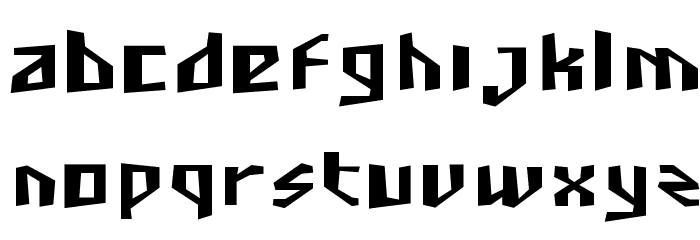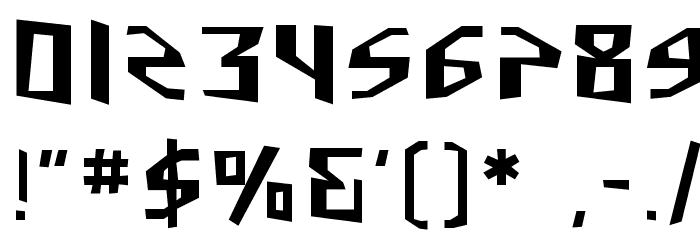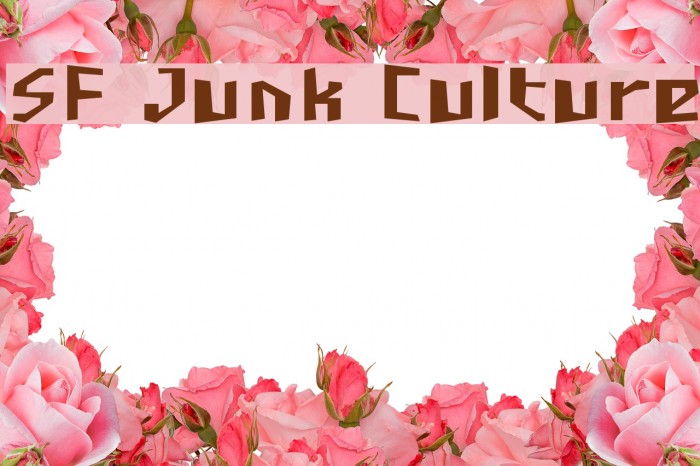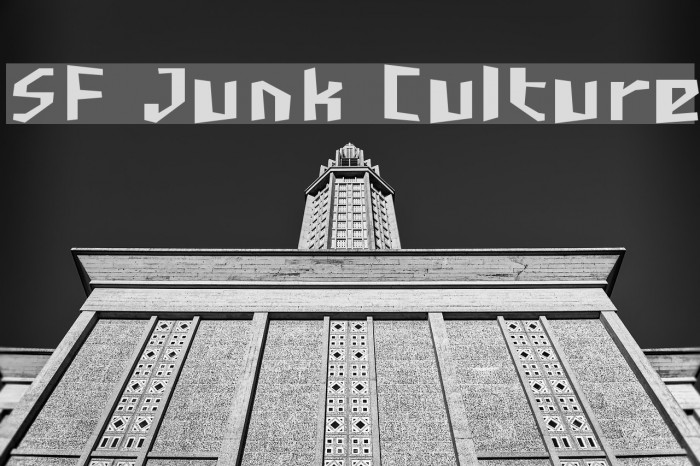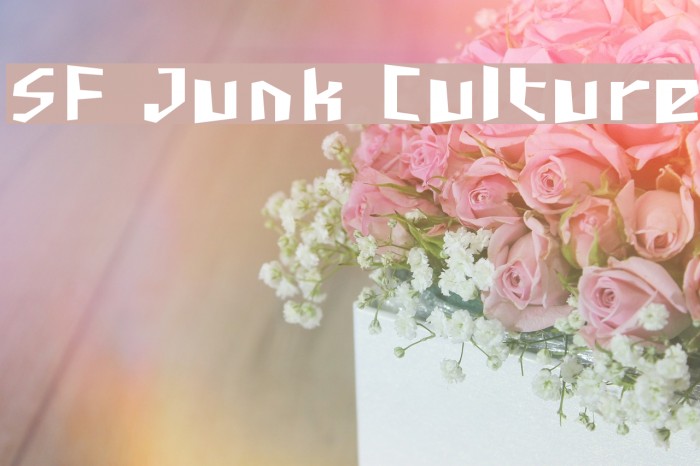
SF Junk Culture Font
This font features a bold and edgy design with angular, geometric shapes that give it a dynamic and modern appearance. The characters are slightly slanted, adding a sense of movement and energy. The uppercase and lowercase letters maintain a consistent style, with sharp edges and a blocky structure. Numbers and special characters follow the same design principles, ensuring uniformity across all glyphs. The font's unique style makes it stand out, perfect for projects that require a strong visual impact.
A bold, angular font with a modern, dynamic style.
- Proposed Projects: Ideal for posters, album covers, video game graphics, and branding that requires a bold statement.